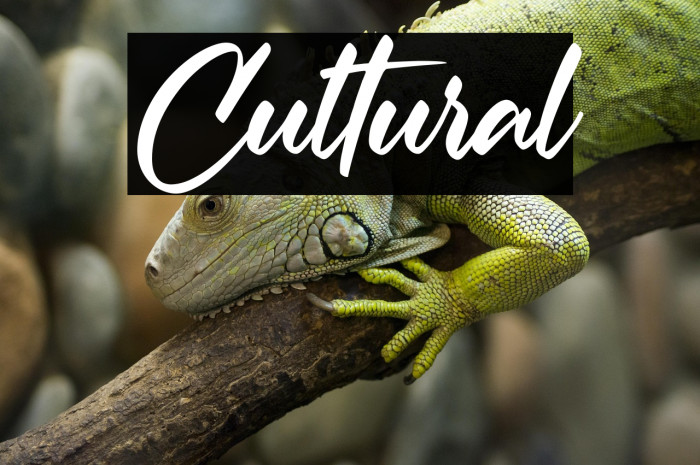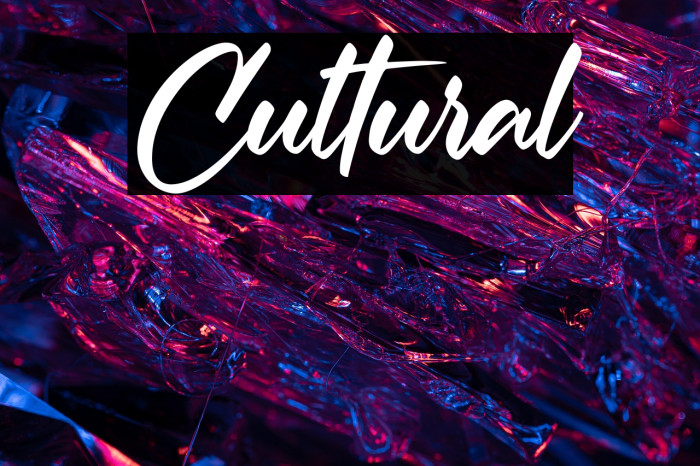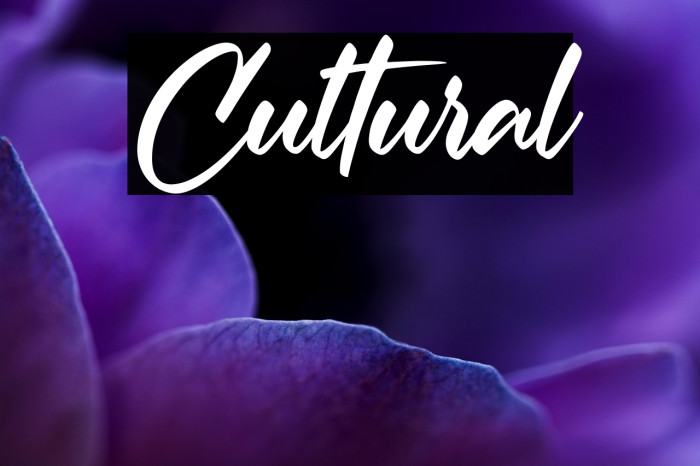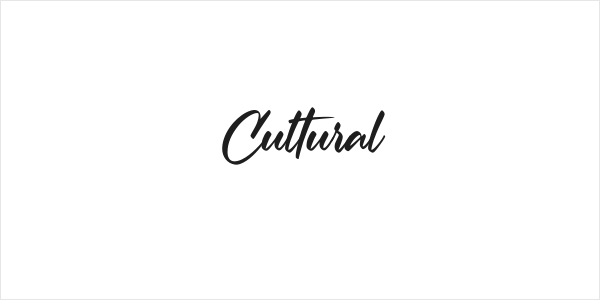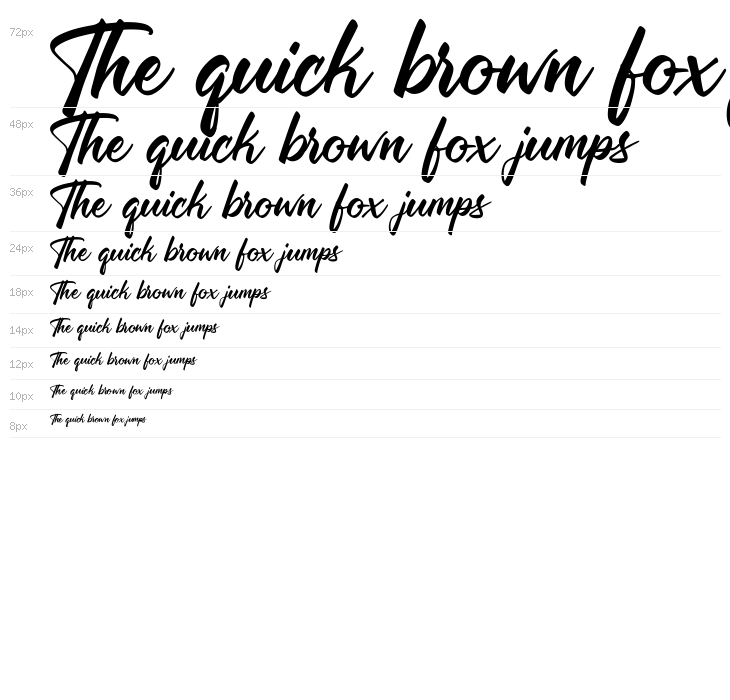
Cultural Font
Cultural Description
This font exudes a dynamic and fluid style, characterized by its cursive script that mimics elegant handwriting. The letters are connected, creating a seamless flow that enhances its sophisticated appearance. The strokes are bold and confident, with a slight slant that adds to its graceful movement. The uppercase letters are slightly more elaborate, while the lowercase letters maintain a consistent rhythm. Numbers and special characters are designed to complement the overall aesthetic, ensuring a cohesive look across different uses. This font is ideal for projects that require a personal touch or a sense of elegance.
| Proposed Projects | Ideal for wedding invitations, greeting cards, branding, and elegant packaging designs. |